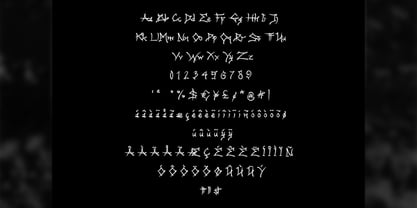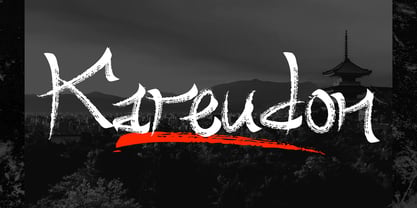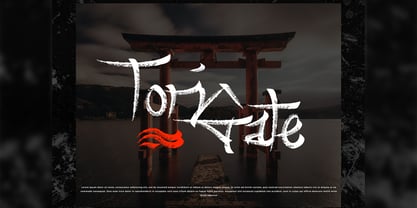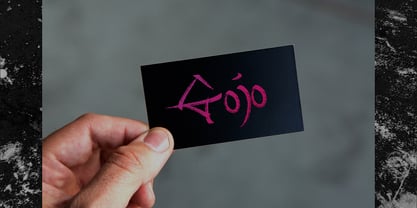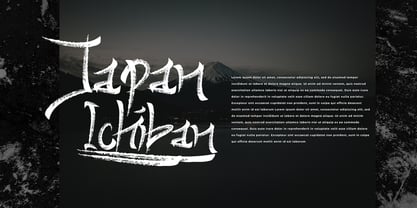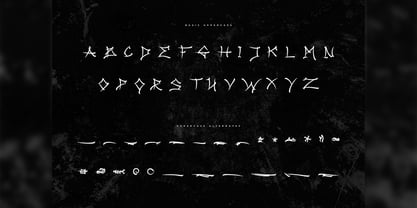
Kareudon
by Jadatype
The Kareudon Font Family was designed by Jada Akbal and published by Jadatype. Kareudon contains 1 styles. More about this family
Kareudon is a font with japan brush style for your display. suitable for social media, music covers, branding, products, handwritten, and so on. contains standard English letters, numbers, punctuation, and several accents that support multilingualism.